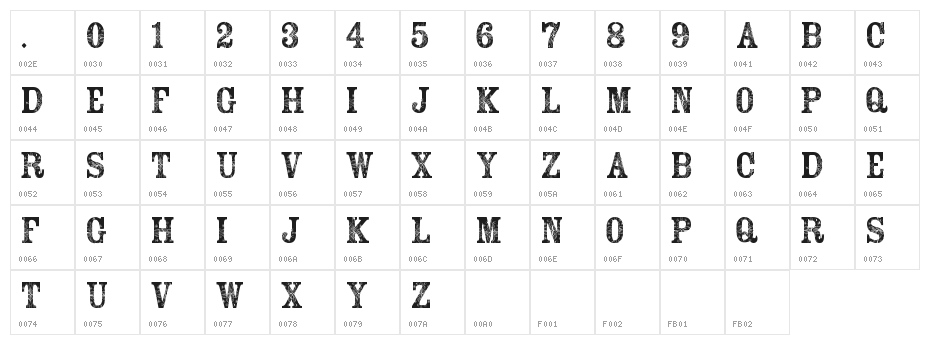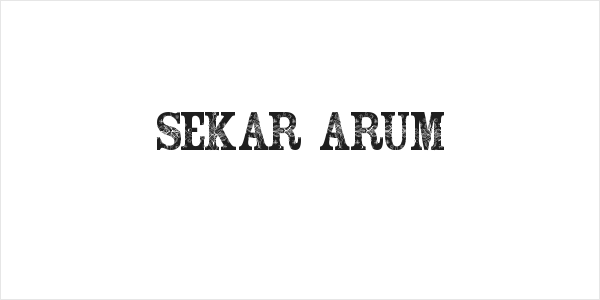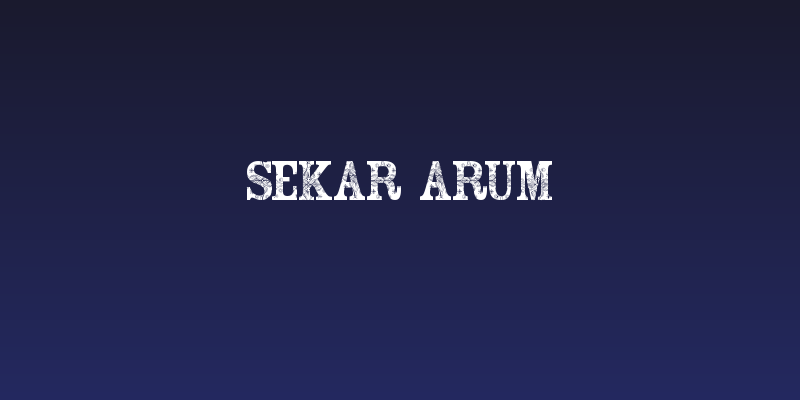
Sekar Arum Font
Sekar Arum Description
This font features a bold and decorative style with intricate floral patterns embedded within each character. The uppercase and lowercase letters, as well as numbers, are adorned with detailed botanical designs, making it visually striking and unique. The overall appearance is both artistic and elegant, suitable for projects that require a touch of sophistication and creativity. The characters are well-defined, with a consistent thickness that adds to the boldness of the font. The decorative elements within the letters create a high contrast against the solid background, enhancing readability while maintaining an ornate aesthetic.
| Proposed Projects | Ideal for wedding invitations, greeting cards, branding projects, and decorative posters. |